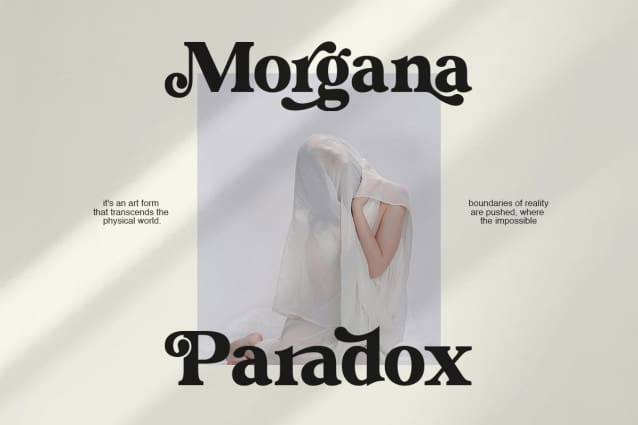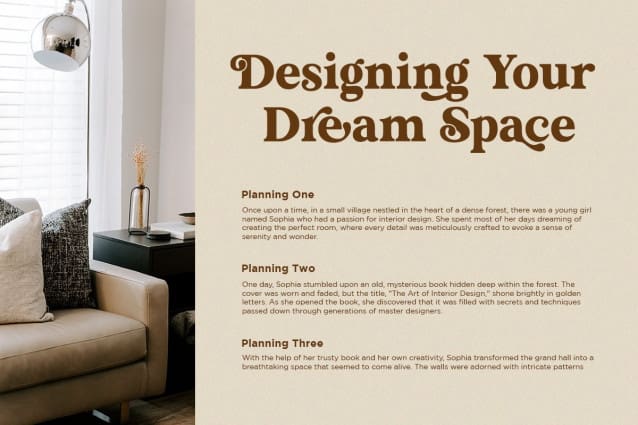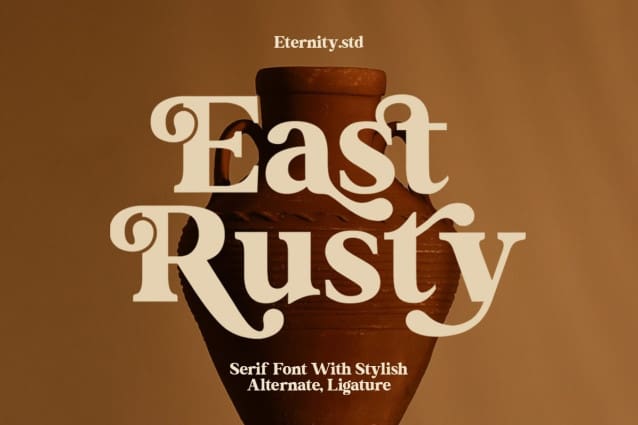
East Rusty Font
East Rusty Font – This font isn’t just about style—it’s about making your designs 80-90s with retro style. With its sleek alternates and graceful ligatures, East Rusty is perfect for all your graphic design needs. Whether you’re crafting a logo, designing a poster, or creating a stunning website, this font delivers.